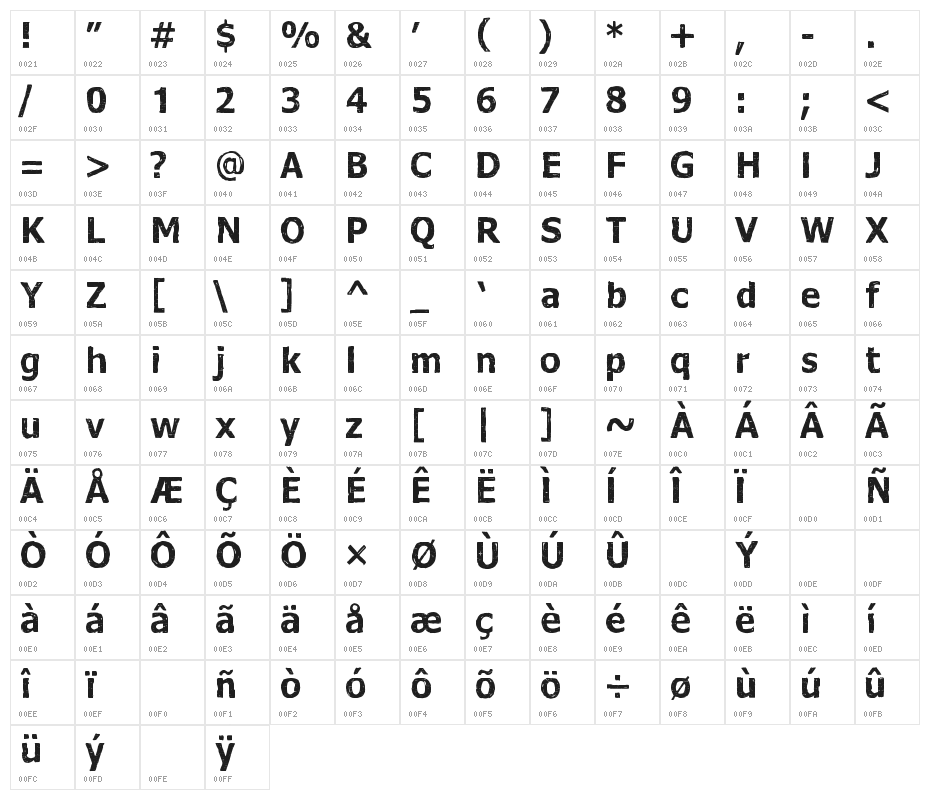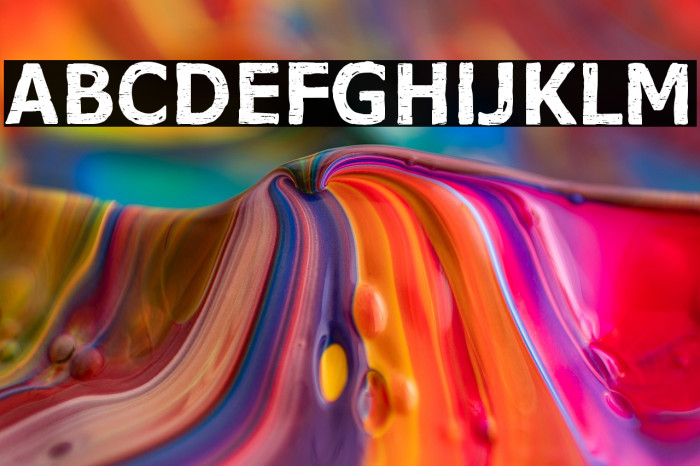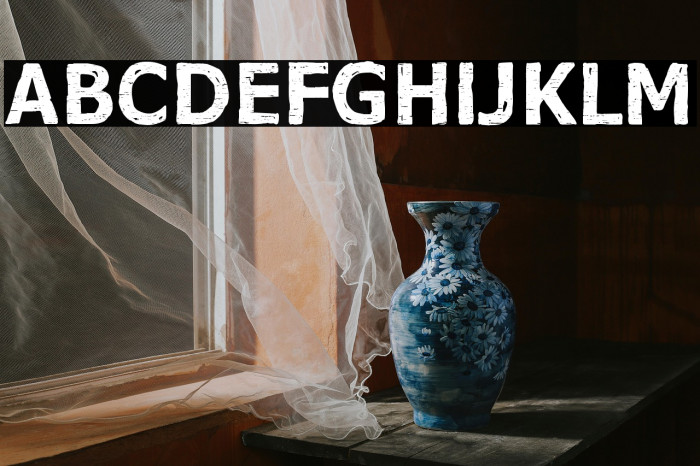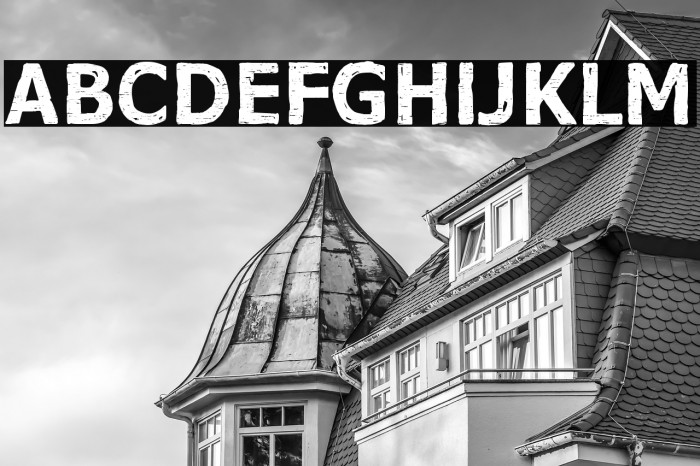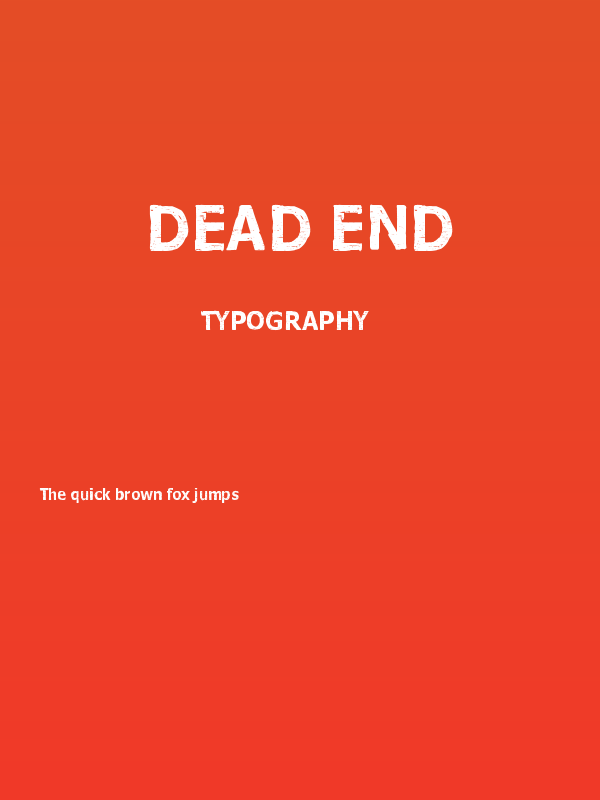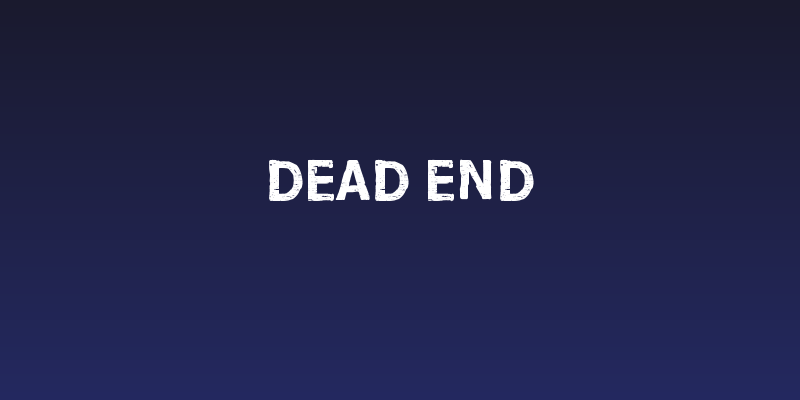
Dead end Font
Dead end Description
This font features a bold, distressed appearance with a textured, worn effect that gives it a vintage and rugged feel. The characters are bold and slightly irregular, adding a handcrafted touch to the overall design. The uppercase and lowercase letters maintain a consistent style, with rounded edges and a substantial presence. The numbers and special characters follow the same aesthetic, ensuring uniformity across all glyphs. This font's unique style makes it stand out, perfect for projects that require a strong, impactful visual statement.